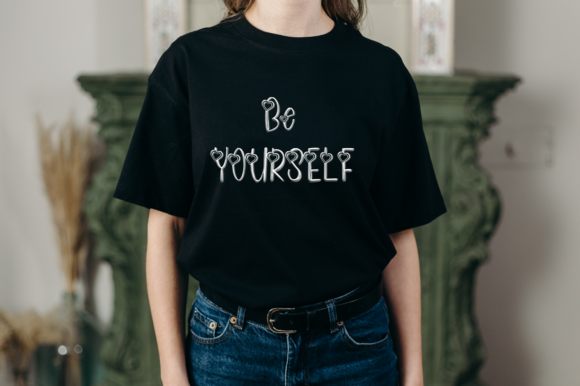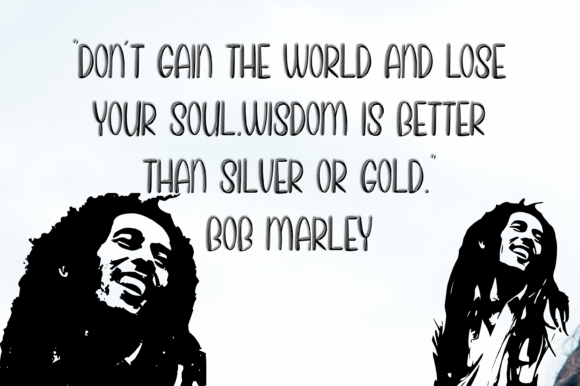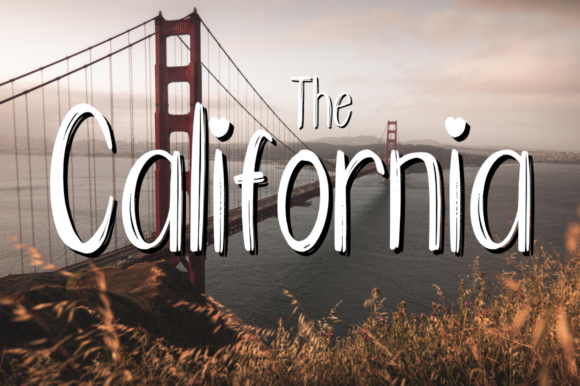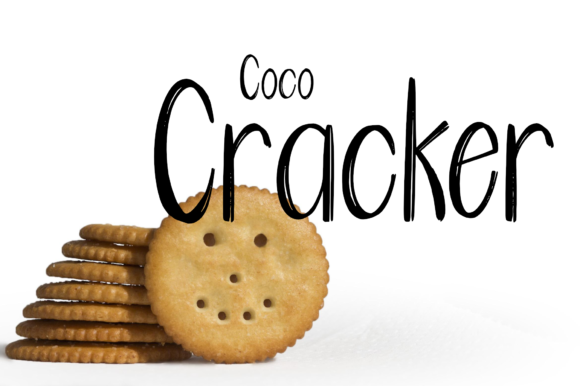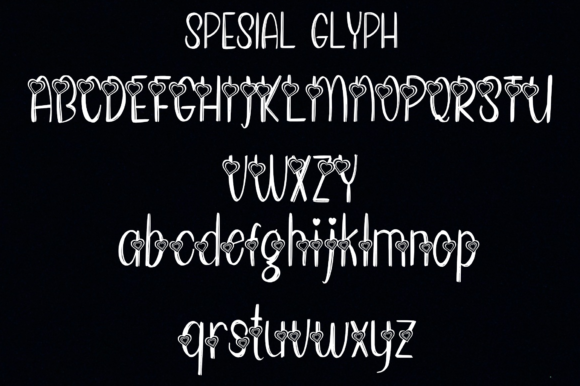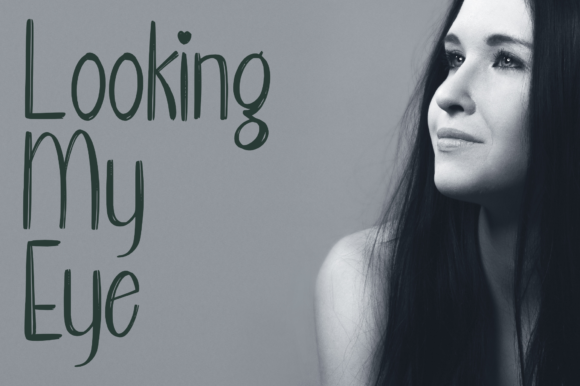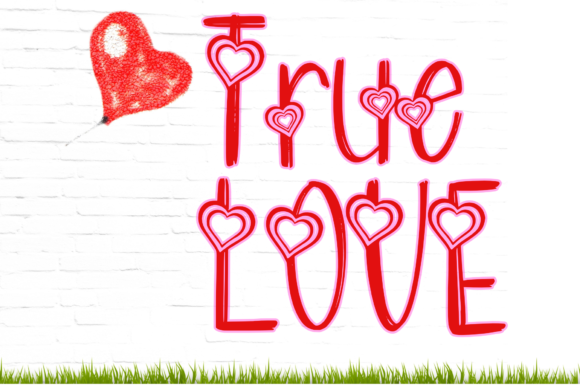
Holliwing Font
About Holliwing Font
HOLLIWING Script stands as a testament to modern handwriting design, embodying both casual charm and exquisite beauty, enriched with captivating swashes. This font transcends conventional boundaries, offering versatility that extends to a myriad of creative purposes. Whether you’re crafting logos, designing product packaging, curating wedding invitations, establishing branding, creating headlines, enhancing signage, labeling, crafting signatures, developing book covers, composing posters, or fashioning memorable quotes, HOLLIWING Script emerges as an ideal choice that seamlessly integrates into a diverse range of projects.
The casual yet beautiful nature of HOLLIWING Script imparts a contemporary and dynamic flair to your creations. Its fluid strokes and thoughtfully designed swashes elevate the visual impact, making every character an artistic expression. The versatility of this font allows it to adapt effortlessly to various design contexts, providing a harmonious balance between style and readability.
Imagine HOLLIWING Script gracing a wedding invitation, where each stroke conveys not only information but also a sense of romance and elegance. The same font seamlessly transitions to logo design, branding, or product packaging, adapting to each context with grace and style.
Whether your project demands a bold and attention-grabbing headline or a subtle and sophisticated signature, HOLLIWING Script rises to the occasion. Its ability to harmonize with diverse design elements ensures that your creative vision is realized with precision and flair.
As you embrace HOLLIWING Script in your creative journey, may its modern handwriting design become a conduit for your artistic expression, adding a layer of beauty and personality to every project it graces.